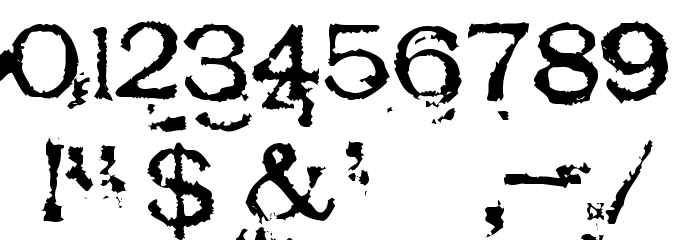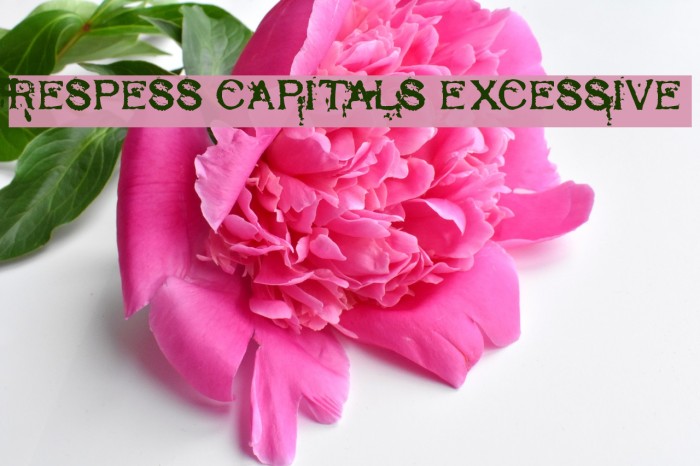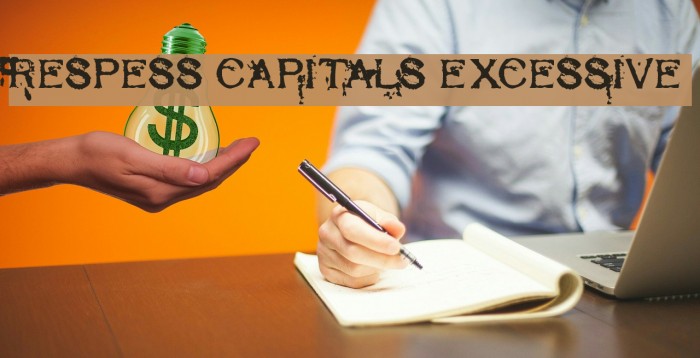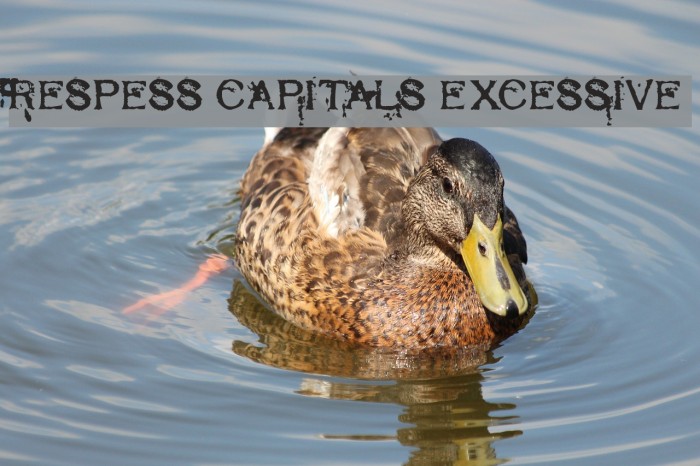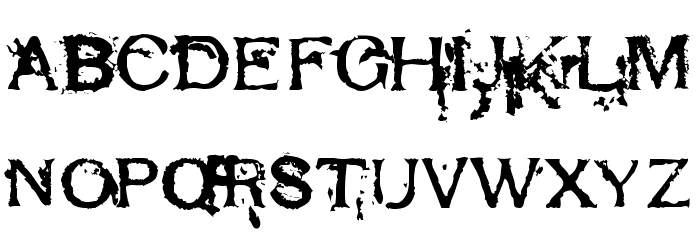
Respess Capitals Excessive Font
Respess Capitals Excessive Description
This font features a distressed, grunge style with a rough, textured appearance. The characters are bold and have an uneven, worn look, giving them a unique and edgy feel. The uppercase and lowercase letters maintain a consistent style, with jagged edges and irregular shapes that suggest a sense of decay or erosion. Numbers and special characters follow the same aesthetic, making the font suitable for projects that require a raw, urban vibe. The overall design is eye-catching and impactful, perfect for making a bold statement.
| Overall Style | Grunge, Urban, Edgy |
| Proposed Projects | Ideal for album covers, posters, streetwear branding, and edgy graphic designs. |